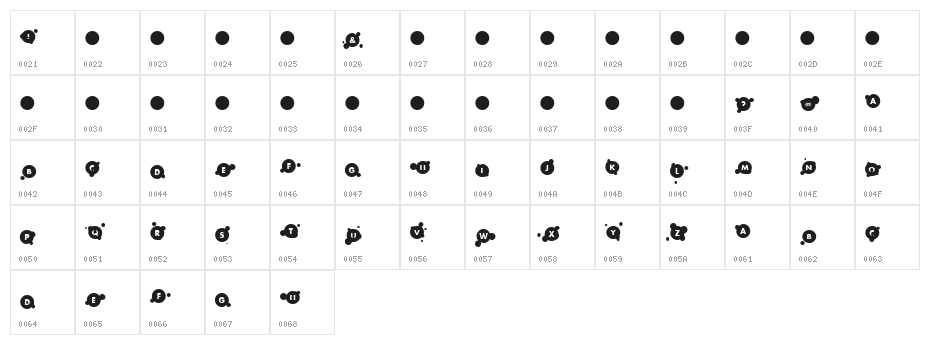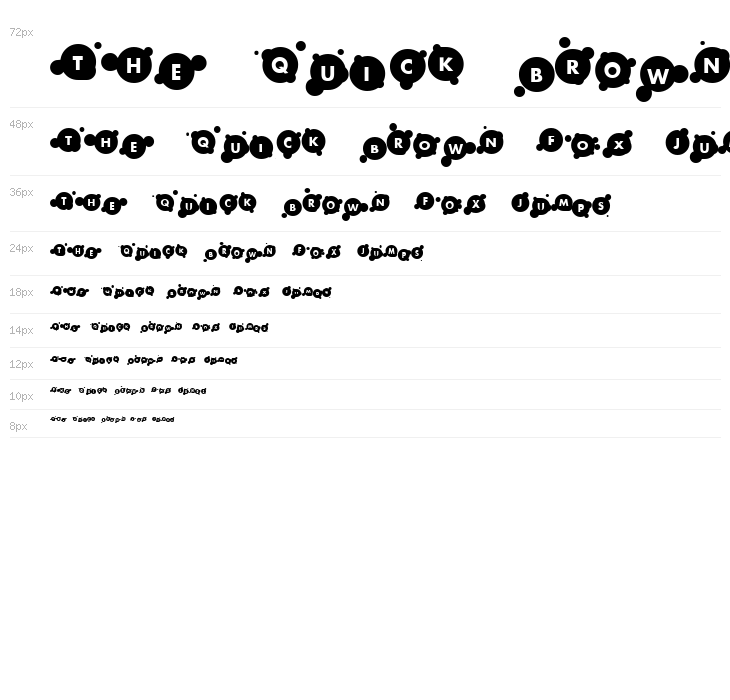
bubble Font
bubble Description
This playful and whimsical font features characters encapsulated in circular bubble-like shapes, creating a fun and dynamic appearance. The letters are bold and rounded, with each character appearing as if it is floating within a bubble. The design is consistent across uppercase, lowercase, and numerical characters, maintaining a cohesive and lively style. The font's unique aesthetic is enhanced by the inclusion of small dots and varying bubble sizes, adding to its charm and visual interest. This font is ideal for projects that require a touch of creativity and playfulness.